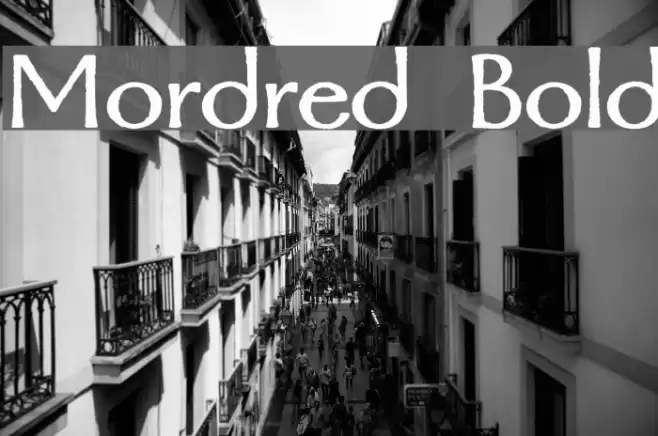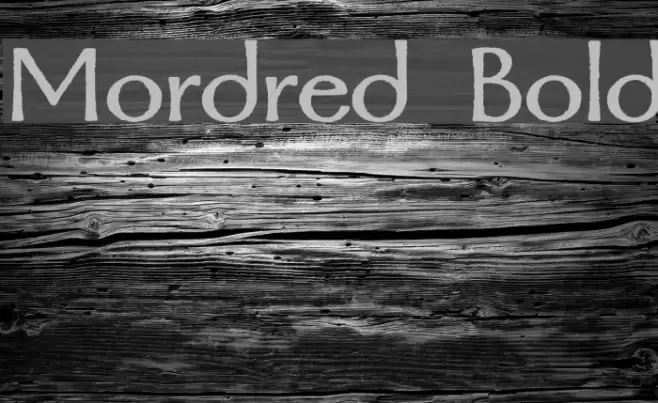
Mordred Bold Font
Mordred Bold Description
This font features a bold and distinctive style with a hand-drawn appearance. The uppercase letters are characterized by sharp, angular lines and a slightly uneven baseline, giving them a rustic and organic feel. The lowercase letters maintain this hand-crafted look, with unique curves and a playful, whimsical touch. Numbers and special characters follow the same design principles, ensuring consistency throughout. The overall aesthetic is reminiscent of medieval or fantasy themes, making it ideal for projects that require a touch of the extraordinary.
A bold, hand-drawn font with a medieval, whimsical style from Uncategorized fonts.
- Proposed Projects: Perfect for fantasy-themed designs, book covers, game titles, or any project needing a unique, hand-crafted look.